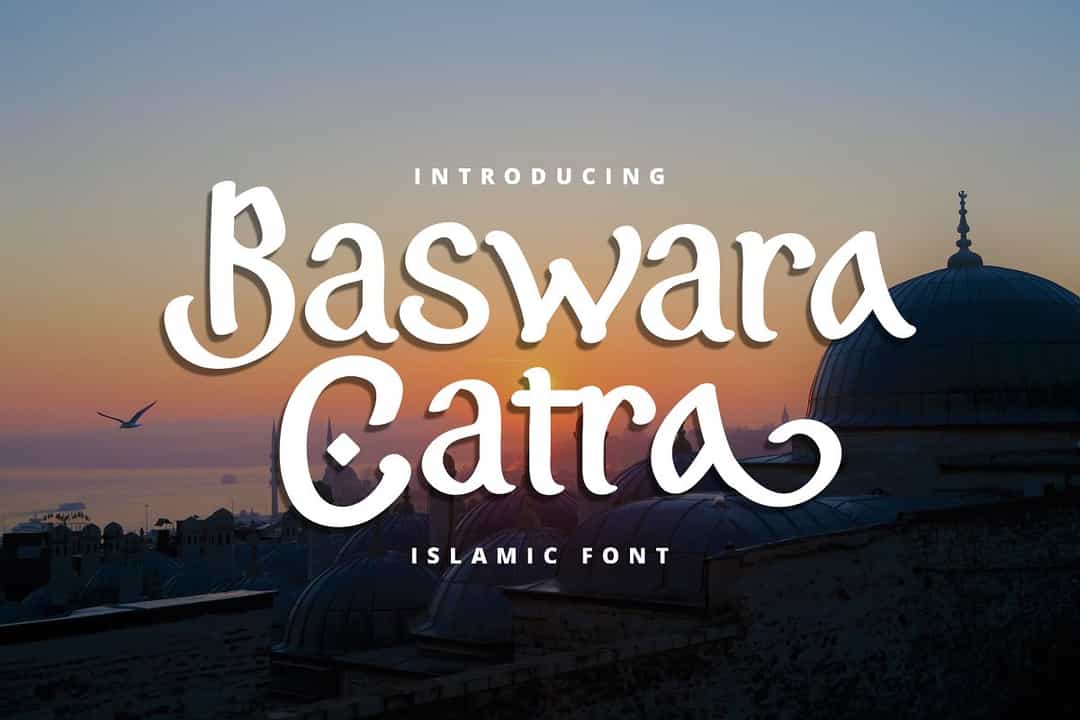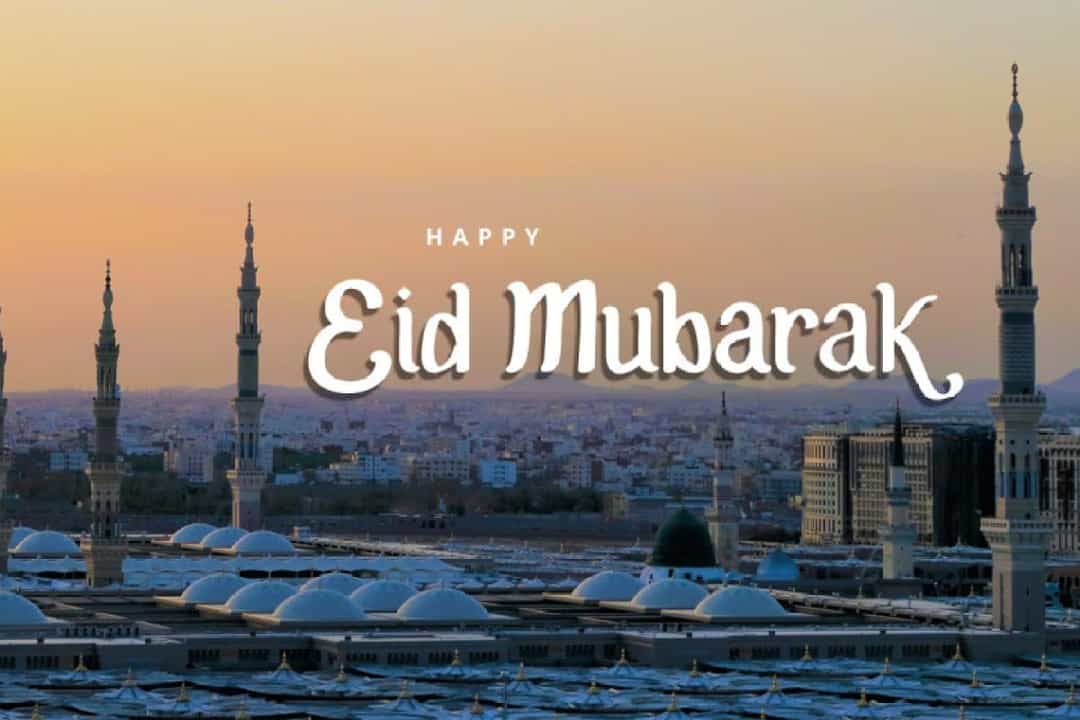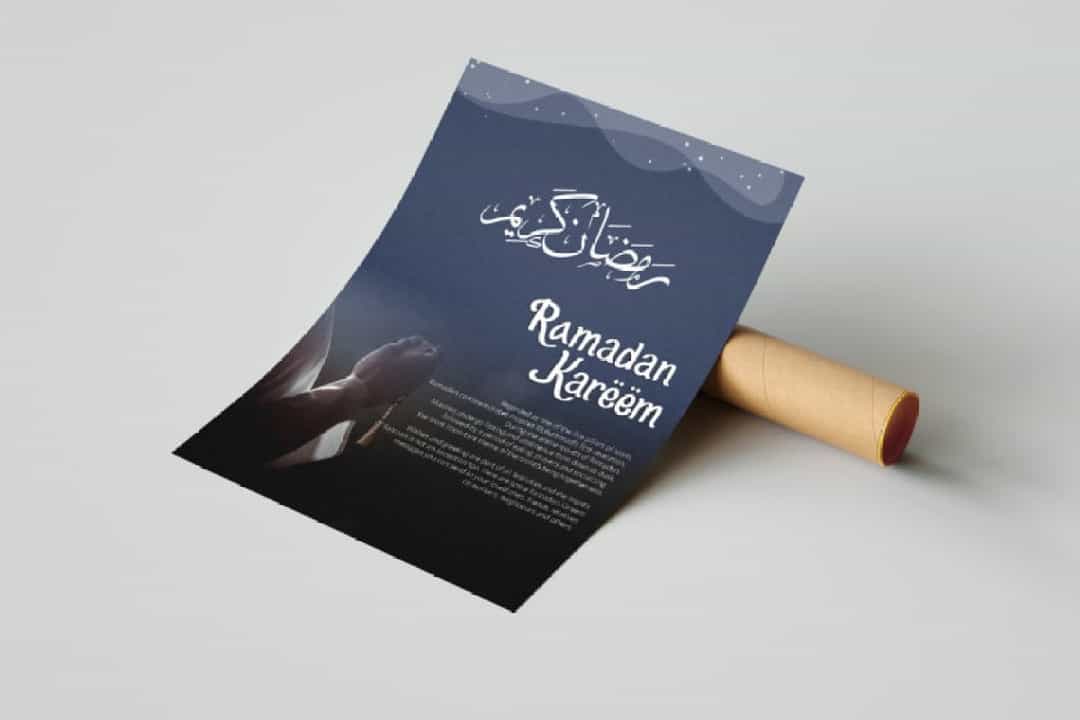
The Baswara Catra Islamic Font is a cool and chill style font that was created for the first time for a collection of beach related motifs based on a local surf shop It was intended to give a multinational look to a local brand with clean, straight lines and swash lines and it is the coolest font so far.